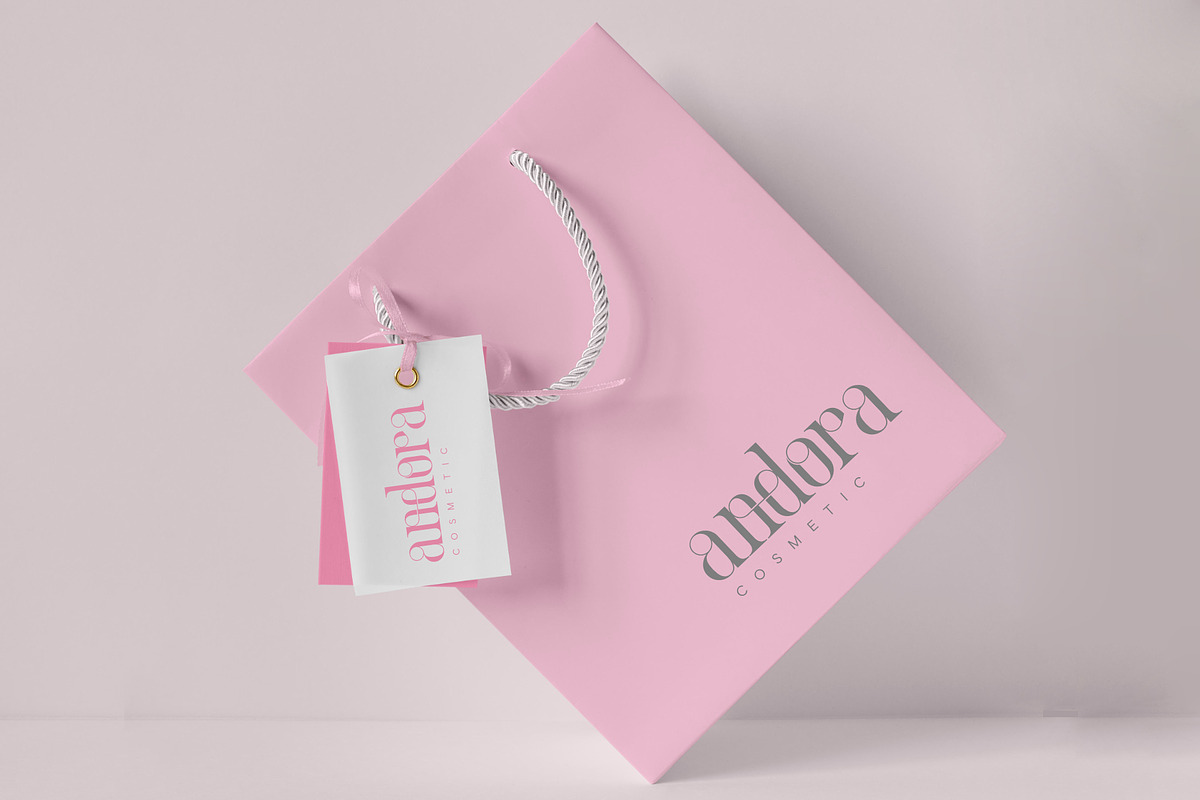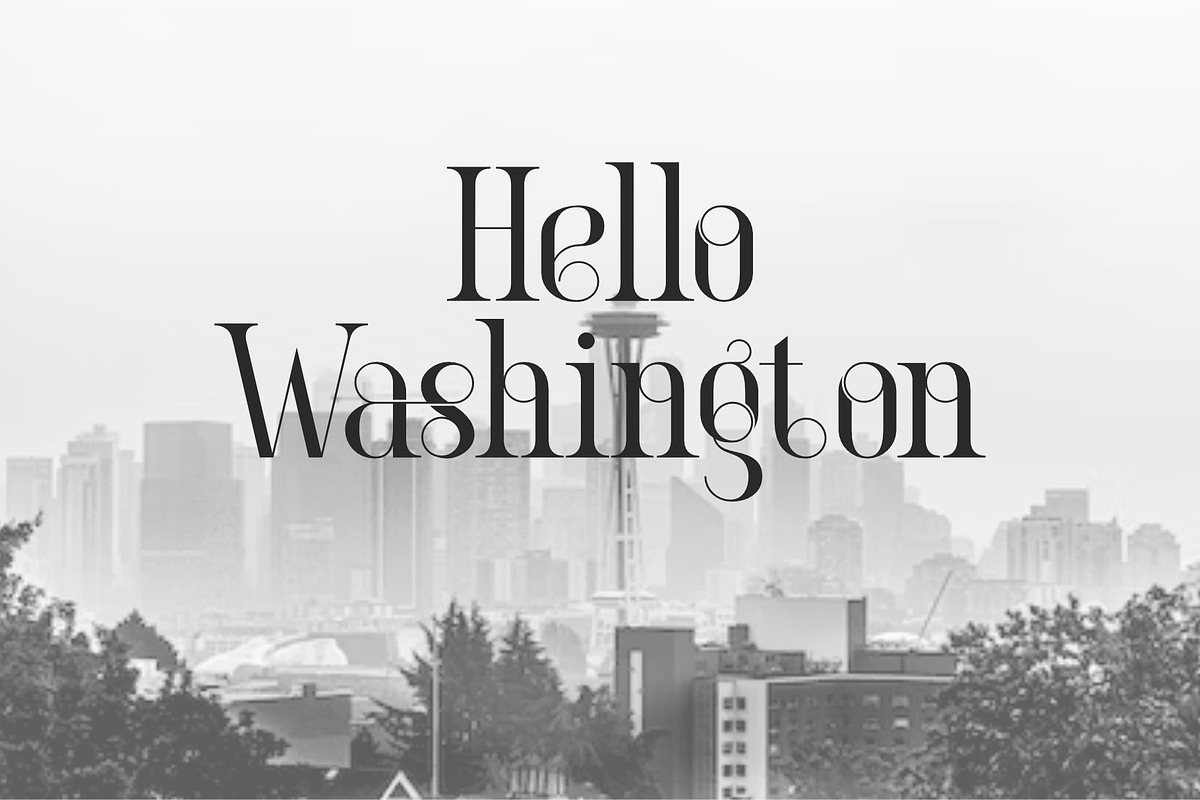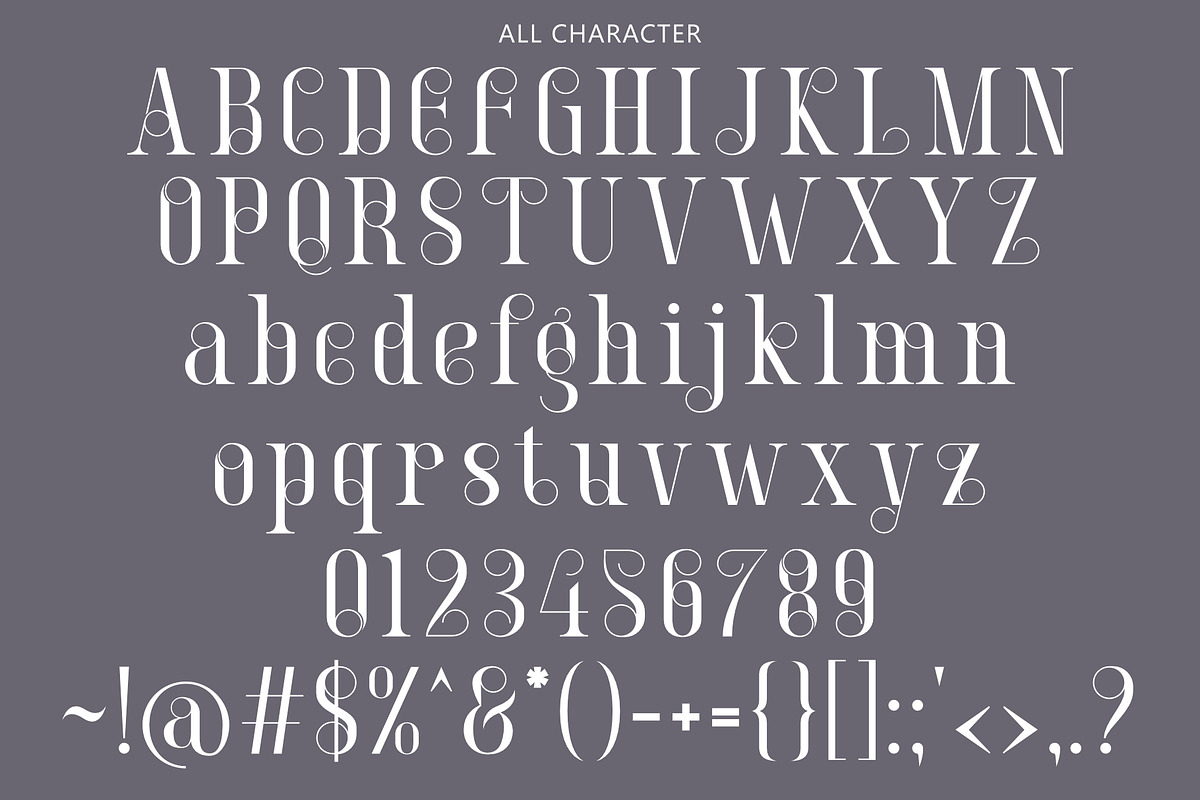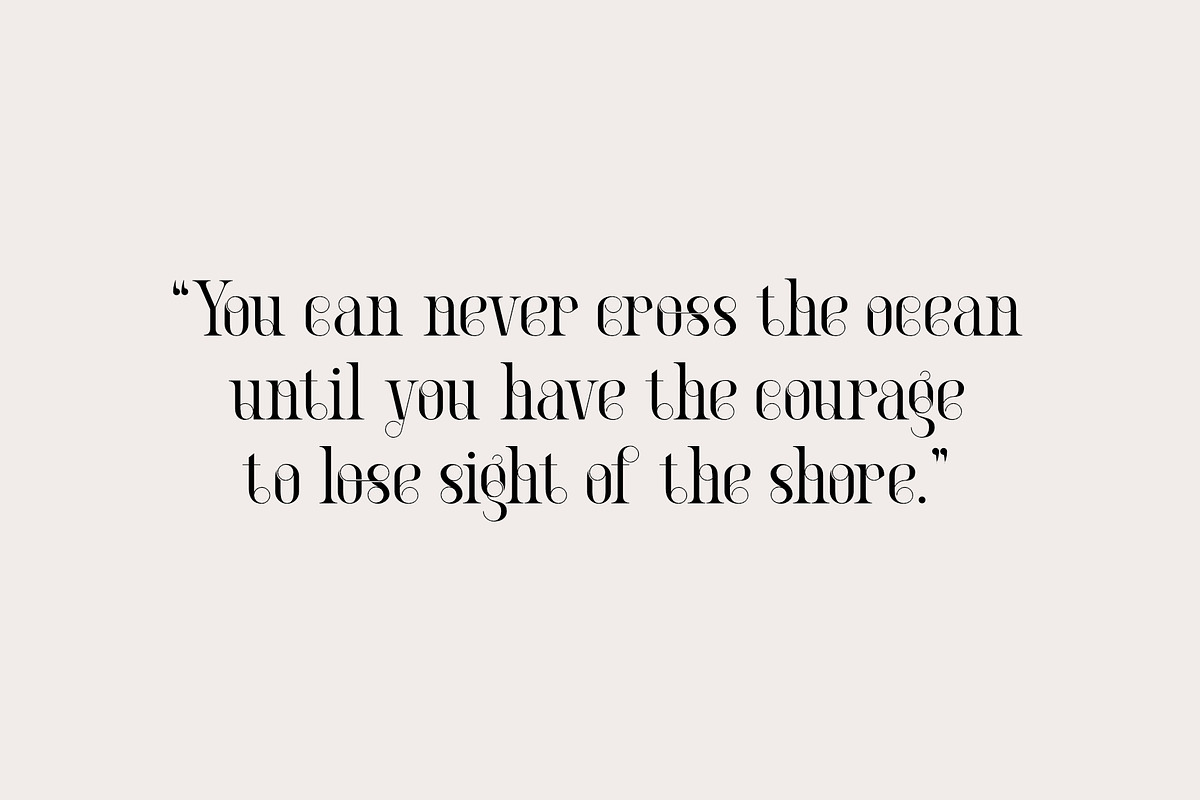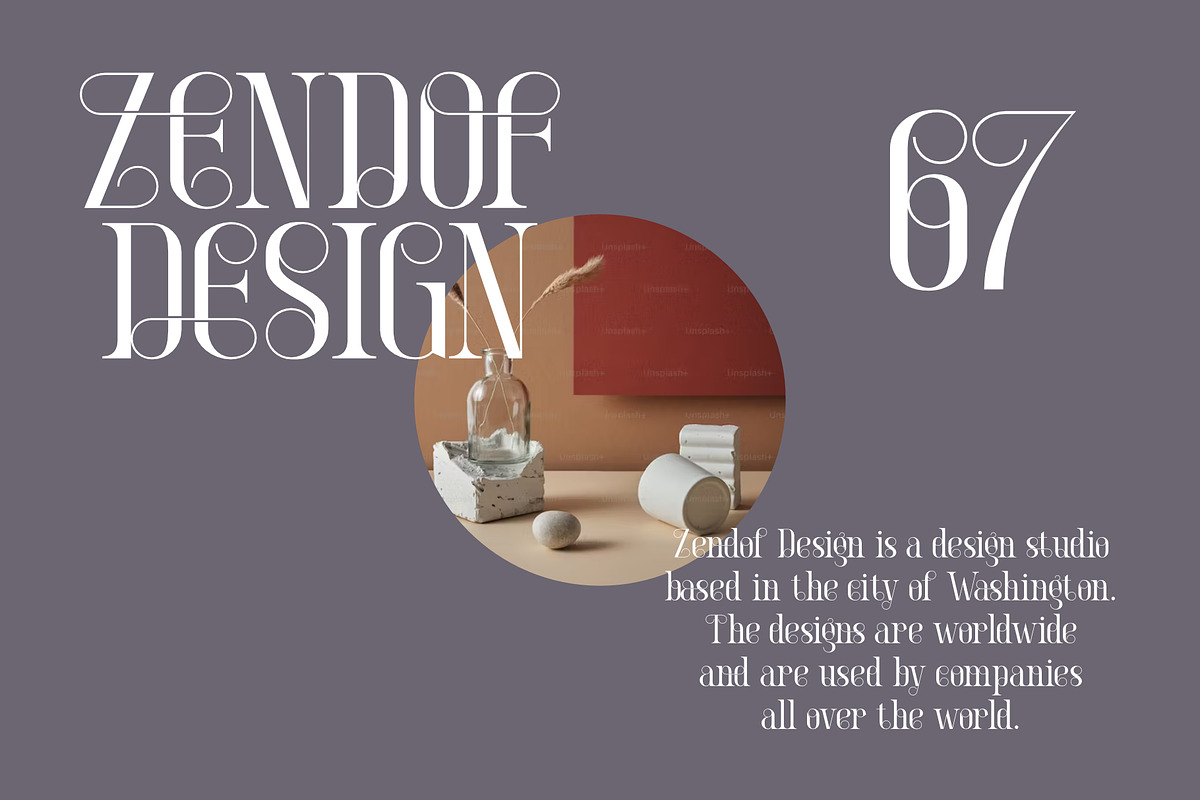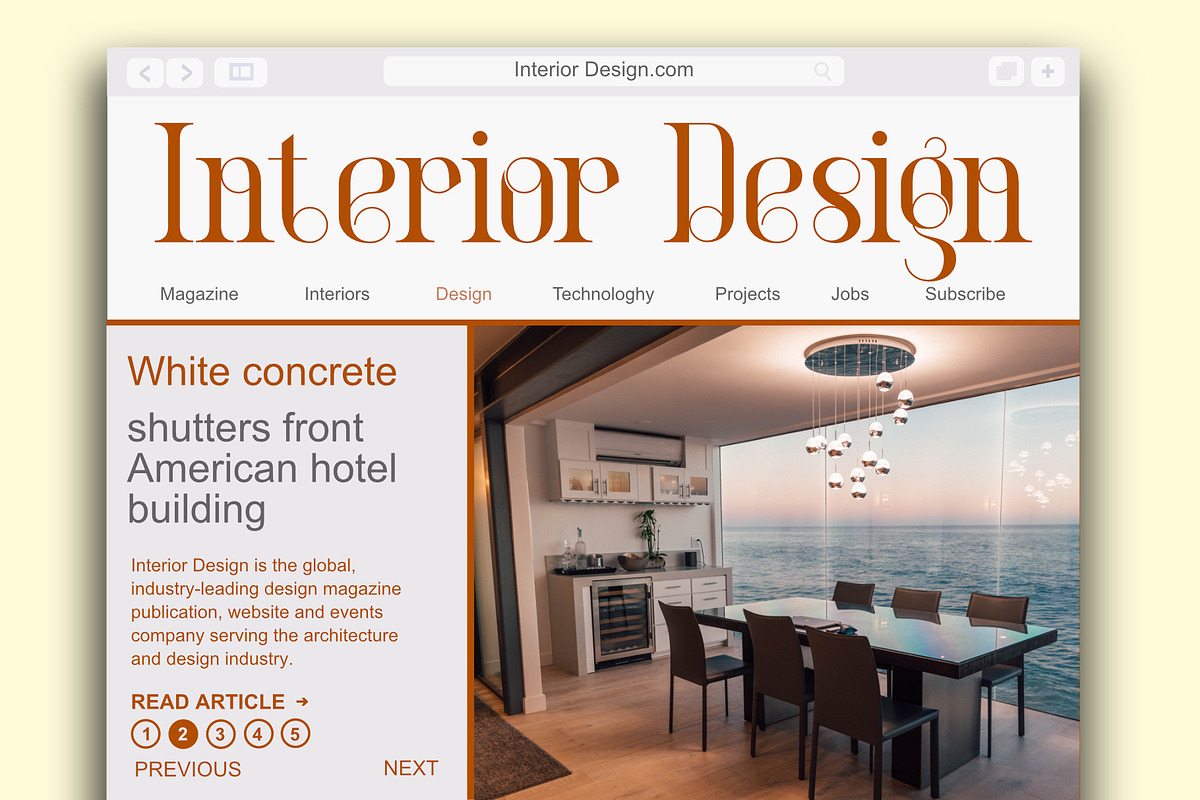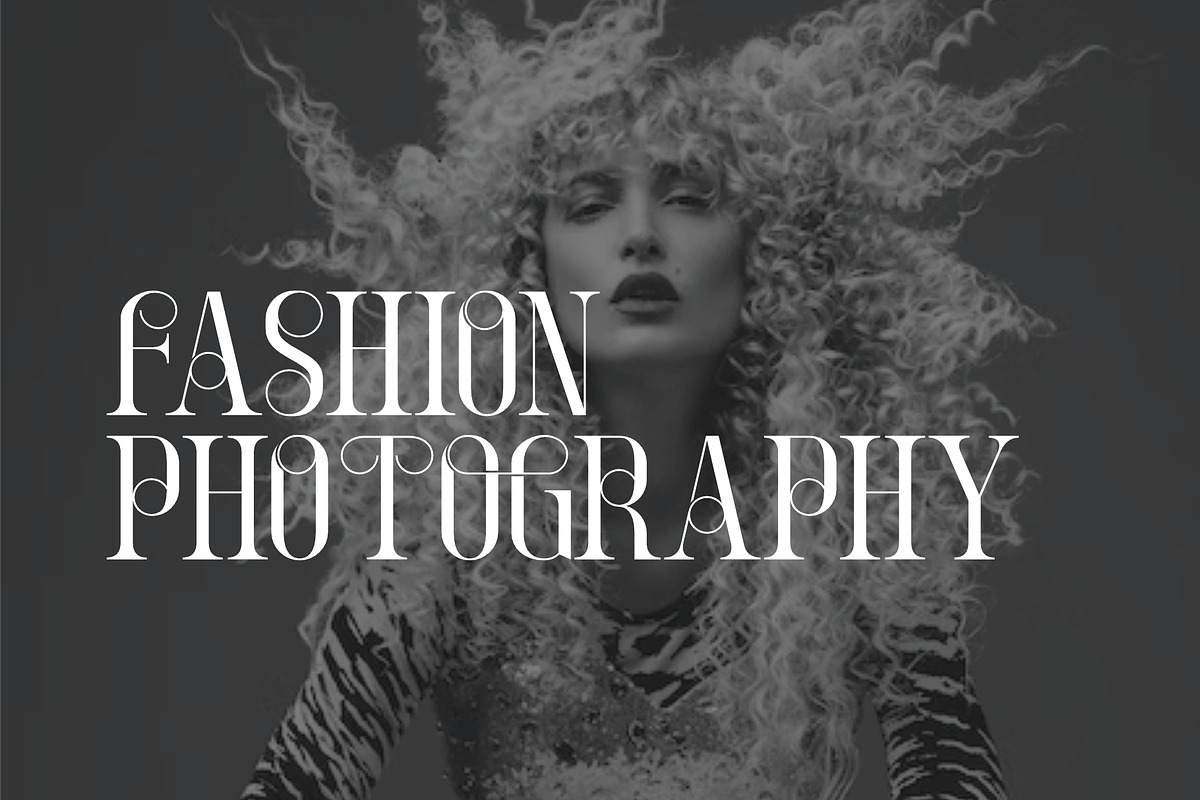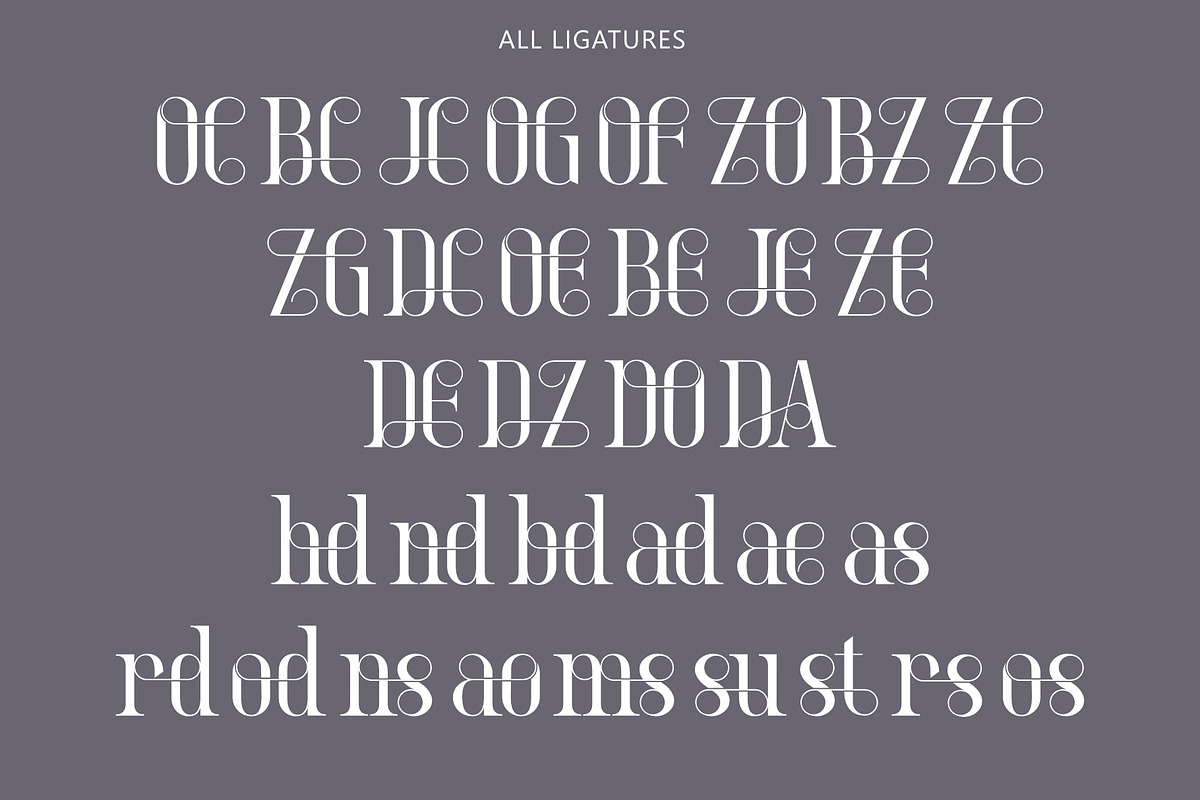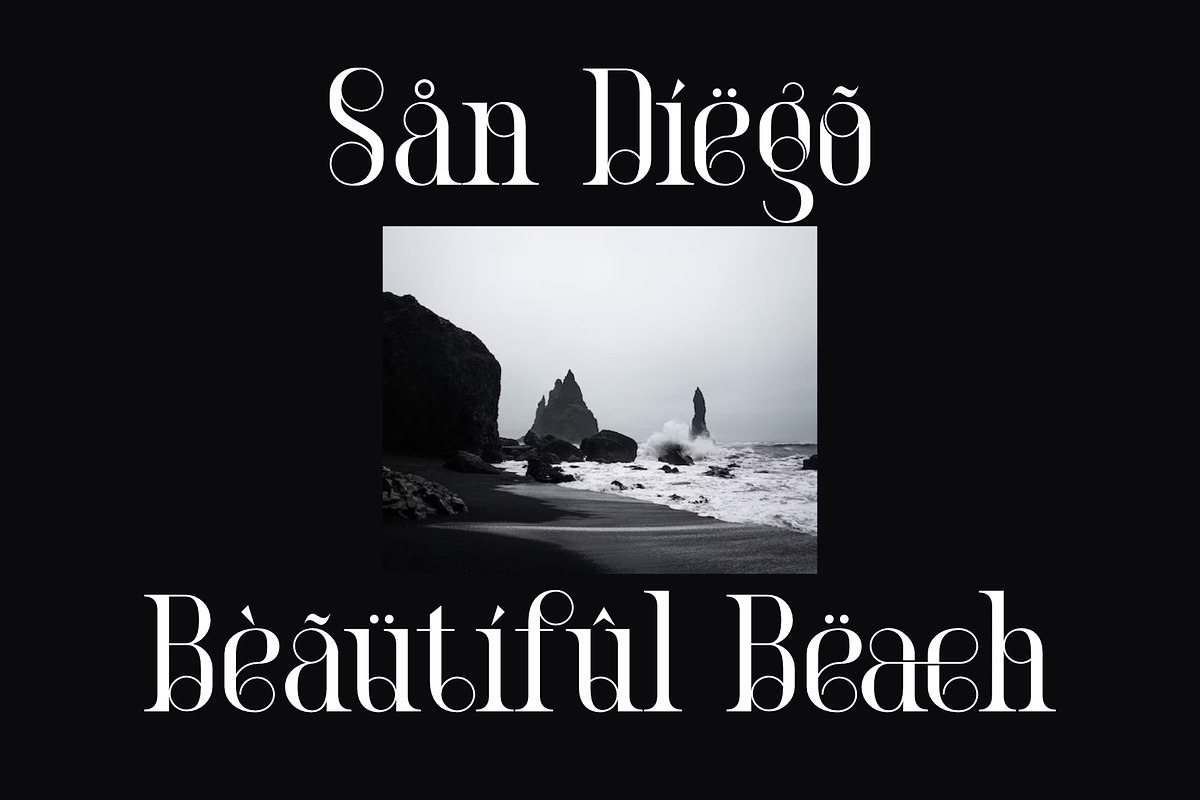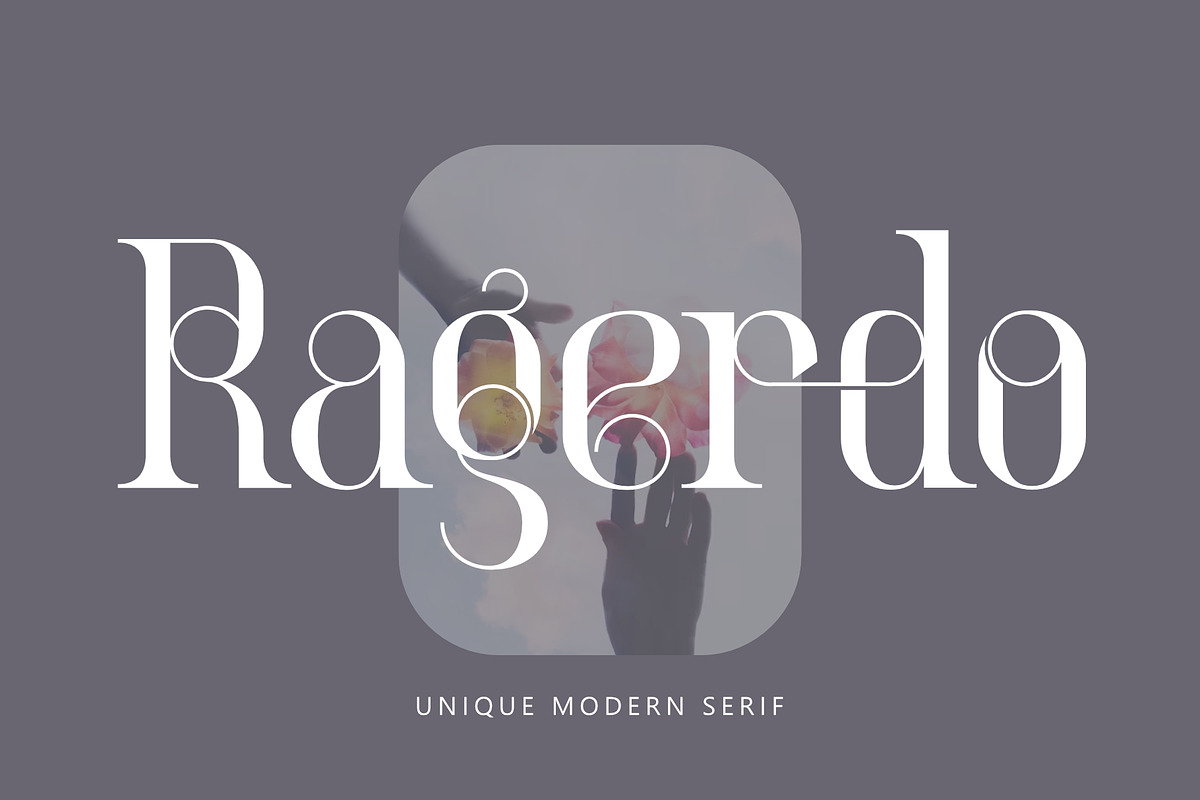
Ragerdo
Ragerdo is modern serif font, every single letters have been carefully crafted to make your text looks unique.
Trendy, classy & modern style serif font for your fancy projects. Elegant, luxury and classic style on Ragerdo font will be great for any branding project. Lot of ligatures will help you to create unique and original logo design or website header! Enjoy :)